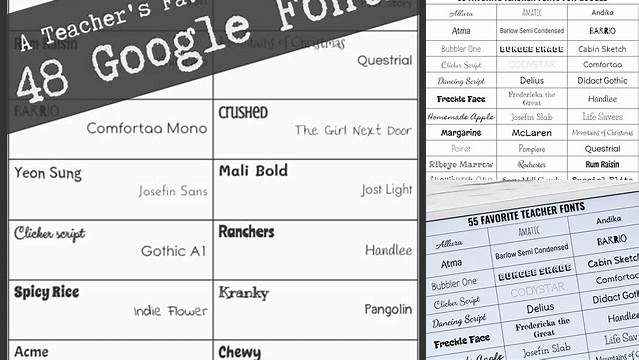
Best Free Fonts For Google Slides For Teachers
Choosing the right font can make a huge difference in how engaging and effective your Google Slides presentations are. For teachers, this is especially important because you want to keep your students focused and make your lessons visually appealing. But with so many fonts out there, where do you even start? Don't worry, guys! This article will guide you through some of the best free fonts for Google Slides that are perfect for teachers. We'll cover a variety of styles, from classic and professional to fun and playful, so you can find the perfect font for any lesson. Let’s dive in and make your presentations shine!
1. Best Serif Fonts for Google Slides
Serif fonts, with their little decorative strokes at the ends of the letters, often convey a sense of tradition and professionalism. When it comes to creating a polished and readable presentation, these fonts can be your best friend. If you're aiming for a classic, easy-to-read look, you'll definitely want to explore serif fonts. Serif fonts are great because they help guide the eye across the text, making them super readable, especially for longer paragraphs or blocks of text. In Google Slides, you've got some fantastic options. Think about using them for your main body text to ensure clarity. It's like giving your words a little extra gravitas and readability! Using them in your presentation slides can create a sophisticated and professional feel. This makes them ideal for subjects like history, literature, or any topic where you want to project an air of authority and credibility. Plus, they're just plain easy on the eyes, which is a big win when you've got a whole class reading along.
2. Top Sans-Serif Fonts for Google Slides
Sans-serif fonts, on the other hand, are known for their clean, modern lines. They lack the small decorative strokes that serif fonts have, giving them a more minimalist and contemporary feel. They’re often considered more readable on screens, which makes them perfect for presentations viewed on laptops, tablets, or projectors. Sans-serif fonts are your go-to when you want something clean, modern, and super readable on screen. These fonts ditch the little decorative strokes, making them perfect for headings and shorter blocks of text. They have a modern, minimalist vibe that can really make your slides pop. These fonts are excellent for headlines, titles, and any short text where you want to grab attention quickly. Think about using a bold sans-serif font for your slide titles to make them stand out. Plus, their clean design makes them great for charts and graphs, ensuring your data is easy to read and understand. Whether you're teaching science, math, or even just giving instructions, a good sans-serif font can make your message crystal clear.
3. Creative Display Fonts for Engaging Slides
Sometimes, you need a font that really pops and grabs attention. That's where display fonts come in. These fonts are designed to be eye-catching and unique, perfect for adding a bit of flair to your presentations. But remember, the key is to use them sparingly. Too many different display fonts can make your slides look cluttered and confusing. So, if you’re thinking about adding a touch of personality to your slides, display fonts are the way to go. Just a sprinkle of creative display fonts can really make your presentations shine. These fonts are all about making a statement, so they’re perfect for titles, headings, or highlighting key points. Think of them as the visual spice that adds flavor to your content. For example, if you're teaching about art or creativity, a fun, artistic display font can set the tone perfectly. Or, if you're introducing a new topic, a bold, attention-grabbing font can help pique your students' interest. These fonts can help you create slides that are both engaging and memorable. Just be sure to use them wisely, so they enhance your message rather than distract from it!
4. Best Handwriting Fonts for a Personal Touch
If you want to add a personal and informal touch to your slides, handwriting fonts are a fantastic option. These fonts mimic the look of handwritten text, which can make your presentation feel more relatable and engaging. However, it's crucial to use them sparingly and ensure they're still easy to read. Overusing handwriting fonts can make your slides look cluttered or difficult to decipher. Handwriting fonts can add a personal touch to your presentations, making them feel more relatable and engaging. These fonts mimic the look of handwritten text, which can be perfect for creating a friendly and informal vibe. Think about using them for quotes, annotations, or even just to highlight key points in a unique way. For instance, if you’re sharing a personal story or encouraging student participation, a handwriting font can make your message feel more authentic. Or, if you're creating a presentation for younger students, these fonts can make the content feel more approachable and fun. They can help you connect with your audience on a more personal level. Just remember to use them in moderation and ensure they’re still easy to read.
5. Professional Fonts for Formal Presentations
For more formal presentations, such as those for faculty meetings or parent-teacher conferences, you'll want to stick with professional fonts. These fonts are clean, clear, and easy to read, ensuring your message comes across with clarity and authority. When it comes to formal presentations, nothing beats a clean and professional font. These fonts ensure your message comes across with clarity and authority, making them perfect for faculty meetings, parent-teacher conferences, or any situation where you need to project a sense of professionalism. Professional fonts are all about readability and conveying a sense of seriousness and expertise. Think about using a classic serif font for the body text to make it easy on the eyes, and a clean sans-serif font for headings to grab attention without being distracting. For instance, if you’re presenting data or research findings, a professional font can help ensure your information is taken seriously. Or, if you’re outlining important policies or procedures, a clear, straightforward font can help avoid any confusion. They help you maintain a polished and credible image.
6. Fun and Playful Fonts for Kids' Presentations
When you're creating presentations for kids, you can afford to be a bit more playful with your font choices. Fun and playful fonts can help capture their attention and make learning more engaging. However, always prioritize readability. A font might look cute, but if it's hard to read, it's not a good choice. For presentations geared towards kids, fun and playful fonts can be a total game-changer. These fonts help capture their attention and make learning a blast! Think about using fonts that have a whimsical feel, but always remember the golden rule: readability is key. A font might look super cute, but if it’s hard to read, it’s a no-go. Consider using a playful font for titles and headings to draw them in, and then switch to a clearer font for the main content to keep things easy to follow. They can make your presentations more engaging and memorable. Just make sure the fun doesn't come at the expense of clarity!
7. Bold Fonts for Headlines and Titles
Bold fonts are your best friend when it comes to headlines and titles. They grab attention and make important information stand out. Use bold fonts to highlight key points and guide your audience through your slides. Want to make your headlines and titles pop? Bold fonts are the way to go! They're like the spotlight for your key information, grabbing attention and making sure your audience knows what's important. Think of them as the signposts that guide people through your slides. When you use bold fonts strategically, you create a clear visual hierarchy, making it easy for your students to follow along. For example, a bold font for the slide title immediately tells them what the topic is. Then, bolding key words within the body text can help emphasize the main points. They help you organize your content in a way that’s both visually appealing and easy to understand.
8. Light Fonts for Body Text
While bold fonts are great for headlines, light fonts are often a better choice for body text. They offer a softer, more subtle look that can be easier on the eyes, especially for longer paragraphs. When you’re working with body text, light fonts can be a real lifesaver. While bold fonts are perfect for headlines, light fonts offer a softer, more subtle look that’s easier on the eyes, especially for those longer paragraphs. Think of them as the gentle backbone of your slides, providing the content without overwhelming the viewer. Using a light font for the main text ensures your audience can read comfortably without feeling strained. This is super important when you have a lot of information to share! For example, pairing a bold heading with a light-bodied text creates a nice contrast that makes your slides visually appealing and easy to navigate. They help your audience focus on the content without any unnecessary distractions.
9. Script Fonts for Invitations and Special Occasions
29. The Future of Fonts in Digital Presentations
Speculate on emerging trends and future directions in font design for digital presentation platforms like Google Slides.